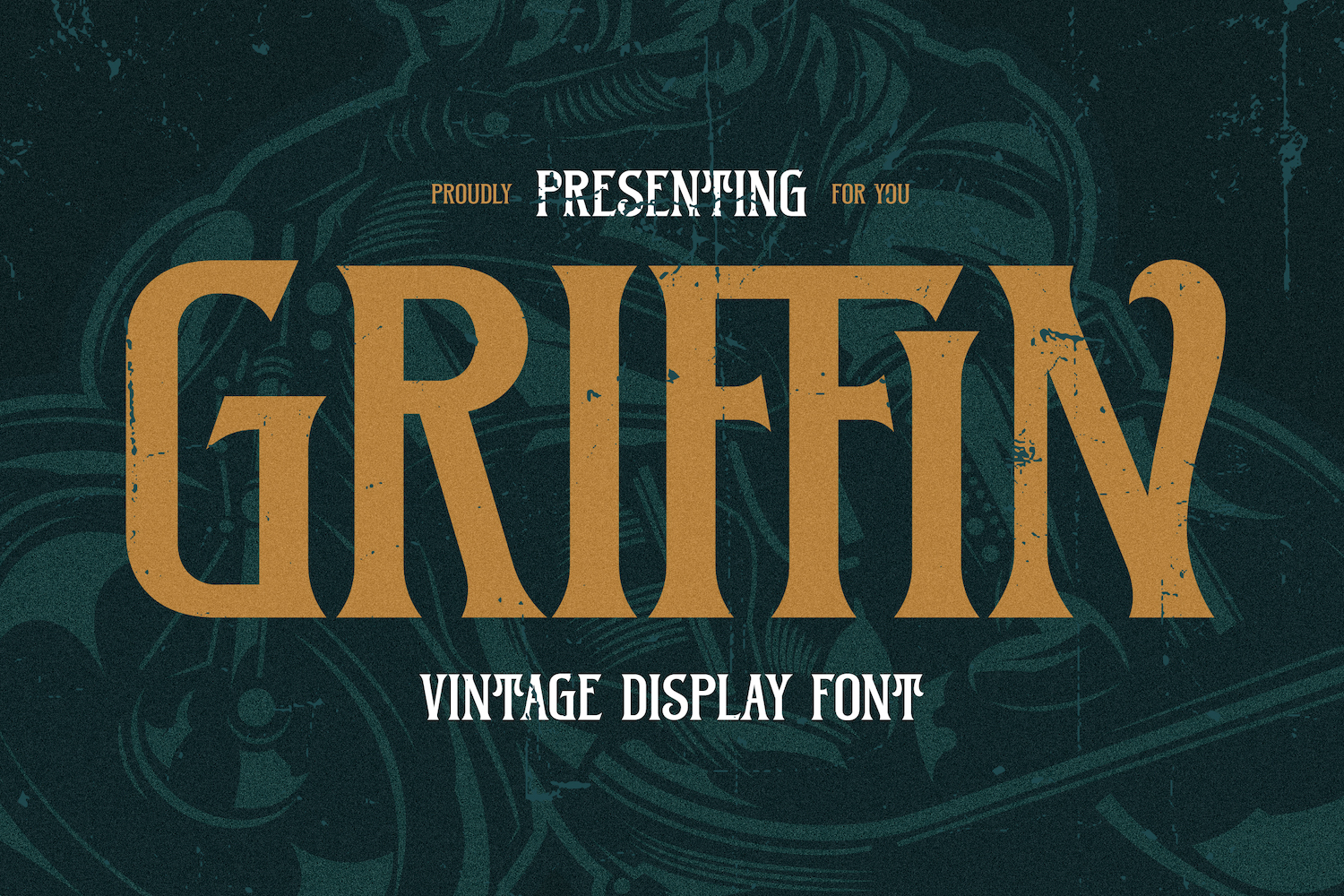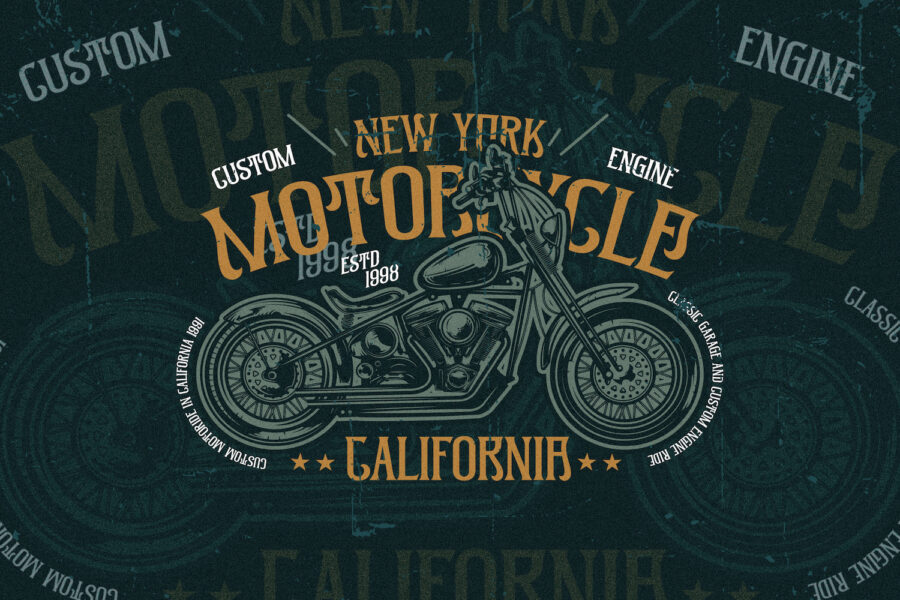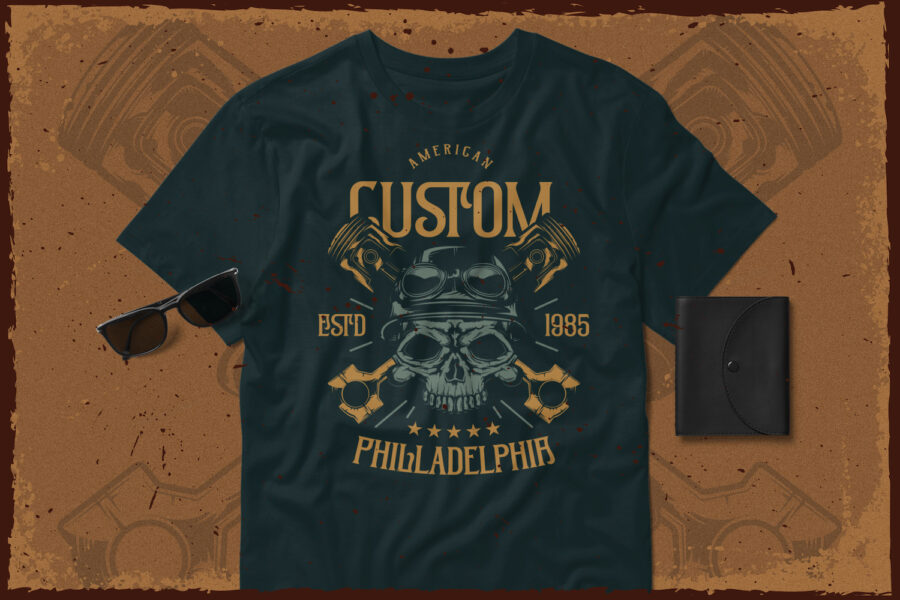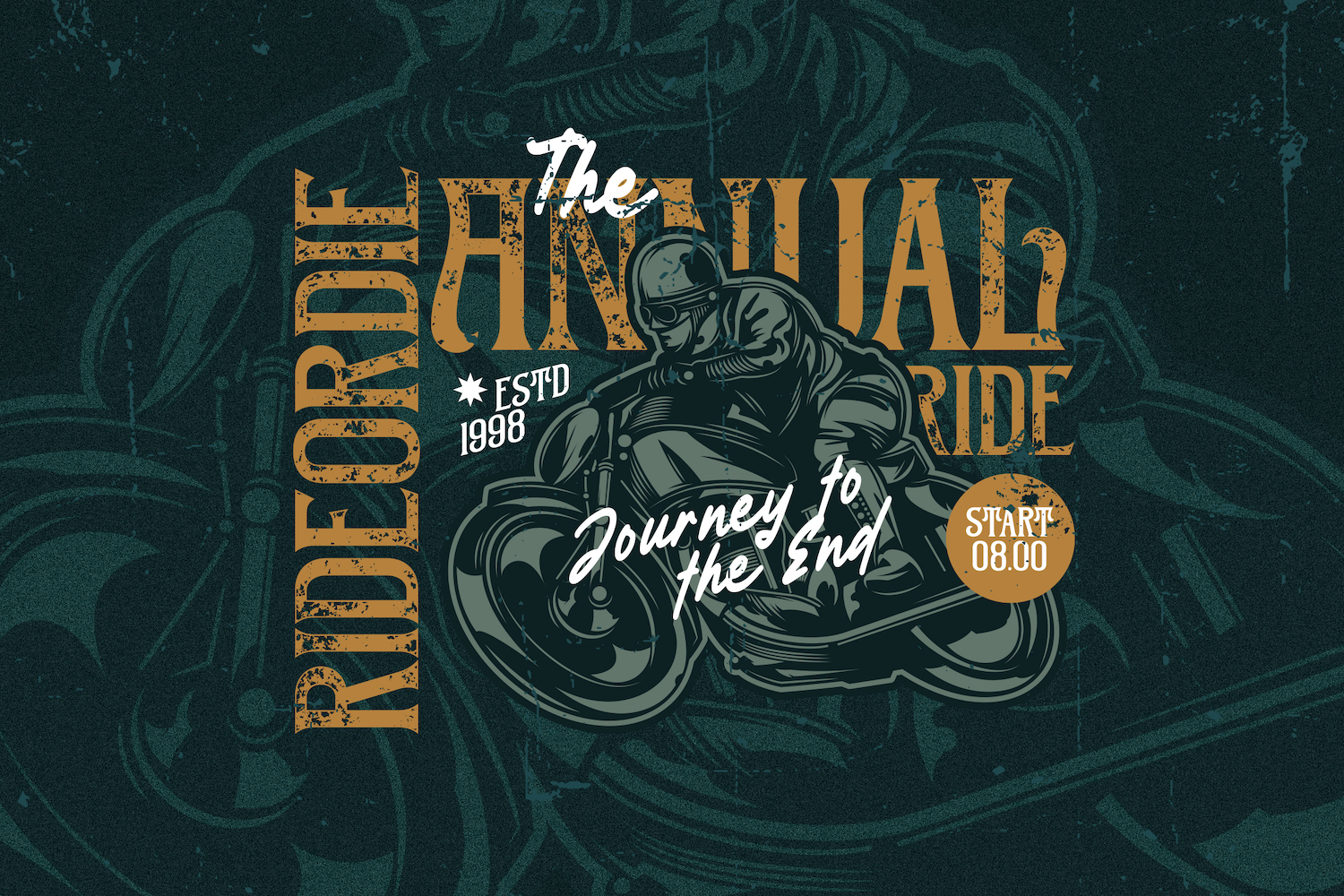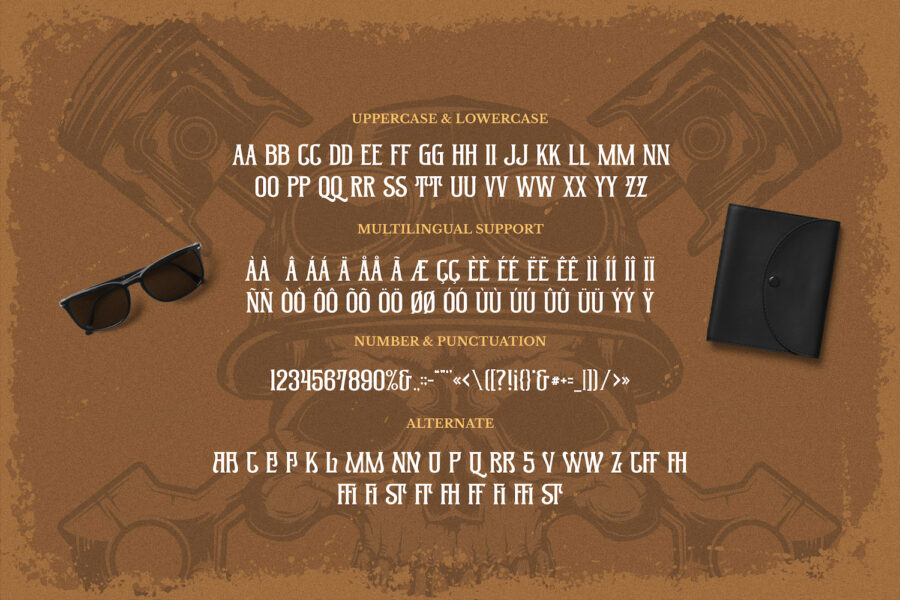
Griffin is a bold and rugged vintage display font designed to evoke the raw energy of custom culture, motorcycle garages, and retro Americana. With its sharp terminals, tall letterforms, and distressed texture, Griffin delivers a gritty and impactful presence suitable for apparel, signage, tattoos, and posters that demand attention. The font includes uppercase, lowercase, multilingual support, punctuations, and a robust set of alternates to enhance versatility and style.
Perfect for projects that seek a masculine, adventurous aesthetic, Griffin thrives in branding for biker events, custom builds, or vintage sportswear. Its bold contrasts and decorative flares give your designs an unmistakable edge, whether it’s riding the open road or crafting a bold visual identity.